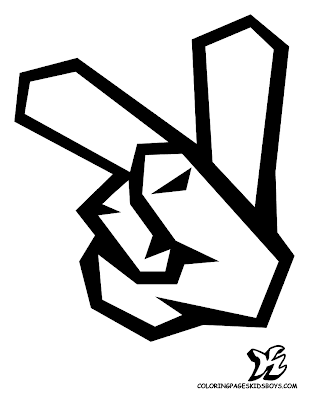
History of Alphabet | Graffiti Alphabet Letters
History of Alphabet | Graffiti Alphabet Letters. Graffiti alphabet letters with a hand symbol
History and graffiti style alphabet letters AZ began in ancient Egypt. By 2700 BCE Egyptian writing had a set of some 22 hieroglyphs to represent syllables that begin with a single consonant of their language, plus a vowel (or no vowel) to be given by native speakers. This glyph is used as a guide for pronunciation logograms, to write grammatical inflections, and, later, to write down loan words and foreign names.
However, although it seems alphabet in nature, the original Egyptian uniliterals not a system and never used by themselves to encode Egyptian speech. In the Middle Bronze Age apparently "alphabetic" system known as Proto-Sinaitic script is estimated by some to have been developed in central Egypt around 1700 BCE for or by Semitic workers, but only one of the early writings have been described and their properties remains open to interpretation. Based on appearances and names the letter, believed to be based on Egyptian hieroglyphs.
This script eventually developed into the Proto-Canaanite alphabet, which in turn was refined into the Phoenician alphabet. This also developed into the South Arabian alphabet, from which the Ge'ez alphabet (a abugida) are descended. Note that the script mentioned above is not considered feasible alphabet, because they all lack characters representing vowels. Vowelless alphabet is called abjads early, and still in scripts such as Arabic, Hebrew and Syriac.
Phoenix is the first major phonemic script. In contrast to the two writing systems are used extensively at the time, Cuneiform and Egyptian hieroglyphs, each containing thousands of different characters, it is only about two dozen distinct letters, so the script is simple enough for common traders to learn. Another advantage is that the Phoenix can be used to write many languages, because words are phonemically recorded.
This manuscript is spread by Phoenician, which allows Thalassocracy script to be spread throughout the Mediterranean. In Greece, the script is modified to add the vowels, giving rise to the first true alphabet. Greece took the letters do not represent the voices that are in Greek, and change them to represent vowels. This marked the formation of a "true" alphabet, with the presence of two vowels and consonants as explicit symbols in a script. In the early years, there are many variants of the Greek alphabet, a situation that causes many different alphabets evolved.
However, although it seems alphabet in nature, the original Egyptian uniliterals not a system and never used by themselves to encode Egyptian speech. In the Middle Bronze Age apparently "alphabetic" system known as Proto-Sinaitic script is estimated by some to have been developed in central Egypt around 1700 BCE for or by Semitic workers, but only one of the early writings have been described and their properties remains open to interpretation. Based on appearances and names the letter, believed to be based on Egyptian hieroglyphs.
This script eventually developed into the Proto-Canaanite alphabet, which in turn was refined into the Phoenician alphabet. This also developed into the South Arabian alphabet, from which the Ge'ez alphabet (a abugida) are descended. Note that the script mentioned above is not considered feasible alphabet, because they all lack characters representing vowels. Vowelless alphabet is called abjads early, and still in scripts such as Arabic, Hebrew and Syriac.
Phoenix is the first major phonemic script. In contrast to the two writing systems are used extensively at the time, Cuneiform and Egyptian hieroglyphs, each containing thousands of different characters, it is only about two dozen distinct letters, so the script is simple enough for common traders to learn. Another advantage is that the Phoenix can be used to write many languages, because words are phonemically recorded.
This manuscript is spread by Phoenician, which allows Thalassocracy script to be spread throughout the Mediterranean. In Greece, the script is modified to add the vowels, giving rise to the first true alphabet. Greece took the letters do not represent the voices that are in Greek, and change them to represent vowels. This marked the formation of a "true" alphabet, with the presence of two vowels and consonants as explicit symbols in a script. In the early years, there are many variants of the Greek alphabet, a situation that causes many different alphabets evolved.
History of Alphabet | Graffiti Alphabet Letters
History of Alphabet | Graffiti Alphabet Letters. Graffiti alphabet letters with a hand symbol
History and graffiti style alphabet letters AZ began in ancient Egypt. By 2700 BCE Egyptian writing had a set of some 22 hieroglyphs to represent syllables that begin with a single consonant of their language, plus a vowel (or no vowel) to be given by native speakers. This glyph is used as a guide for pronunciation logograms, to write grammatical inflections, and, later, to write down loan words and foreign names.
However, although it seems alphabet in nature, the original Egyptian uniliterals not a system and never used by themselves to encode Egyptian speech. In the Middle Bronze Age apparently "alphabetic" system known as Proto-Sinaitic script is estimated by some to have been developed in central Egypt around 1700 BCE for or by Semitic workers, but only one of the early writings have been described and their properties remains open to interpretation. Based on appearances and names the letter, believed to be based on Egyptian hieroglyphs.
This script eventually developed into the Proto-Canaanite alphabet, which in turn was refined into the Phoenician alphabet. This also developed into the South Arabian alphabet, from which the Ge'ez alphabet (a abugida) are descended. Note that the script mentioned above is not considered feasible alphabet, because they all lack characters representing vowels. Vowelless alphabet is called abjads early, and still in scripts such as Arabic, Hebrew and Syriac.
Phoenix is the first major phonemic script. In contrast to the two writing systems are used extensively at the time, Cuneiform and Egyptian hieroglyphs, each containing thousands of different characters, it is only about two dozen distinct letters, so the script is simple enough for common traders to learn. Another advantage is that the Phoenix can be used to write many languages, because words are phonemically recorded.
This manuscript is spread by Phoenician, which allows Thalassocracy script to be spread throughout the Mediterranean. In Greece, the script is modified to add the vowels, giving rise to the first true alphabet. Greece took the letters do not represent the voices that are in Greek, and change them to represent vowels. This marked the formation of a "true" alphabet, with the presence of two vowels and consonants as explicit symbols in a script. In the early years, there are many variants of the Greek alphabet, a situation that causes many different alphabets evolved.
However, although it seems alphabet in nature, the original Egyptian uniliterals not a system and never used by themselves to encode Egyptian speech. In the Middle Bronze Age apparently "alphabetic" system known as Proto-Sinaitic script is estimated by some to have been developed in central Egypt around 1700 BCE for or by Semitic workers, but only one of the early writings have been described and their properties remains open to interpretation. Based on appearances and names the letter, believed to be based on Egyptian hieroglyphs.
This script eventually developed into the Proto-Canaanite alphabet, which in turn was refined into the Phoenician alphabet. This also developed into the South Arabian alphabet, from which the Ge'ez alphabet (a abugida) are descended. Note that the script mentioned above is not considered feasible alphabet, because they all lack characters representing vowels. Vowelless alphabet is called abjads early, and still in scripts such as Arabic, Hebrew and Syriac.
Phoenix is the first major phonemic script. In contrast to the two writing systems are used extensively at the time, Cuneiform and Egyptian hieroglyphs, each containing thousands of different characters, it is only about two dozen distinct letters, so the script is simple enough for common traders to learn. Another advantage is that the Phoenix can be used to write many languages, because words are phonemically recorded.
This manuscript is spread by Phoenician, which allows Thalassocracy script to be spread throughout the Mediterranean. In Greece, the script is modified to add the vowels, giving rise to the first true alphabet. Greece took the letters do not represent the voices that are in Greek, and change them to represent vowels. This marked the formation of a "true" alphabet, with the presence of two vowels and consonants as explicit symbols in a script. In the early years, there are many variants of the Greek alphabet, a situation that causes many different alphabets evolved.
History of Alphabet | Graffiti Alphabet Letters
History of Alphabet | Graffiti Alphabet Letters. Graffiti alphabet letters with a hand symbol
History and graffiti style alphabet letters AZ began in ancient Egypt. By 2700 BCE Egyptian writing had a set of some 22 hieroglyphs to represent syllables that begin with a single consonant of their language, plus a vowel (or no vowel) to be given by native speakers. This glyph is used as a guide for pronunciation logograms, to write grammatical inflections, and, later, to write down loan words and foreign names.
However, although it seems alphabet in nature, the original Egyptian uniliterals not a system and never used by themselves to encode Egyptian speech. In the Middle Bronze Age apparently "alphabetic" system known as Proto-Sinaitic script is estimated by some to have been developed in central Egypt around 1700 BCE for or by Semitic workers, but only one of the early writings have been described and their properties remains open to interpretation. Based on appearances and names the letter, believed to be based on Egyptian hieroglyphs.
This script eventually developed into the Proto-Canaanite alphabet, which in turn was refined into the Phoenician alphabet. This also developed into the South Arabian alphabet, from which the Ge'ez alphabet (a abugida) are descended. Note that the script mentioned above is not considered feasible alphabet, because they all lack characters representing vowels. Vowelless alphabet is called abjads early, and still in scripts such as Arabic, Hebrew and Syriac.
Phoenix is the first major phonemic script. In contrast to the two writing systems are used extensively at the time, Cuneiform and Egyptian hieroglyphs, each containing thousands of different characters, it is only about two dozen distinct letters, so the script is simple enough for common traders to learn. Another advantage is that the Phoenix can be used to write many languages, because words are phonemically recorded.
This manuscript is spread by Phoenician, which allows Thalassocracy script to be spread throughout the Mediterranean. In Greece, the script is modified to add the vowels, giving rise to the first true alphabet. Greece took the letters do not represent the voices that are in Greek, and change them to represent vowels. This marked the formation of a "true" alphabet, with the presence of two vowels and consonants as explicit symbols in a script. In the early years, there are many variants of the Greek alphabet, a situation that causes many different alphabets evolved.
However, although it seems alphabet in nature, the original Egyptian uniliterals not a system and never used by themselves to encode Egyptian speech. In the Middle Bronze Age apparently "alphabetic" system known as Proto-Sinaitic script is estimated by some to have been developed in central Egypt around 1700 BCE for or by Semitic workers, but only one of the early writings have been described and their properties remains open to interpretation. Based on appearances and names the letter, believed to be based on Egyptian hieroglyphs.
This script eventually developed into the Proto-Canaanite alphabet, which in turn was refined into the Phoenician alphabet. This also developed into the South Arabian alphabet, from which the Ge'ez alphabet (a abugida) are descended. Note that the script mentioned above is not considered feasible alphabet, because they all lack characters representing vowels. Vowelless alphabet is called abjads early, and still in scripts such as Arabic, Hebrew and Syriac.
Phoenix is the first major phonemic script. In contrast to the two writing systems are used extensively at the time, Cuneiform and Egyptian hieroglyphs, each containing thousands of different characters, it is only about two dozen distinct letters, so the script is simple enough for common traders to learn. Another advantage is that the Phoenix can be used to write many languages, because words are phonemically recorded.
This manuscript is spread by Phoenician, which allows Thalassocracy script to be spread throughout the Mediterranean. In Greece, the script is modified to add the vowels, giving rise to the first true alphabet. Greece took the letters do not represent the voices that are in Greek, and change them to represent vowels. This marked the formation of a "true" alphabet, with the presence of two vowels and consonants as explicit symbols in a script. In the early years, there are many variants of the Greek alphabet, a situation that causes many different alphabets evolved.
History of Alphabet | Graffiti Alphabet Letters
History of Alphabet | Graffiti Alphabet Letters. Graffiti alphabet letters with a hand symbol
History and graffiti style alphabet letters AZ began in ancient Egypt. By 2700 BCE Egyptian writing had a set of some 22 hieroglyphs to represent syllables that begin with a single consonant of their language, plus a vowel (or no vowel) to be given by native speakers. This glyph is used as a guide for pronunciation logograms, to write grammatical inflections, and, later, to write down loan words and foreign names.
However, although it seems alphabet in nature, the original Egyptian uniliterals not a system and never used by themselves to encode Egyptian speech. In the Middle Bronze Age apparently "alphabetic" system known as Proto-Sinaitic script is estimated by some to have been developed in central Egypt around 1700 BCE for or by Semitic workers, but only one of the early writings have been described and their properties remains open to interpretation. Based on appearances and names the letter, believed to be based on Egyptian hieroglyphs.
This script eventually developed into the Proto-Canaanite alphabet, which in turn was refined into the Phoenician alphabet. This also developed into the South Arabian alphabet, from which the Ge'ez alphabet (a abugida) are descended. Note that the script mentioned above is not considered feasible alphabet, because they all lack characters representing vowels. Vowelless alphabet is called abjads early, and still in scripts such as Arabic, Hebrew and Syriac.
Phoenix is the first major phonemic script. In contrast to the two writing systems are used extensively at the time, Cuneiform and Egyptian hieroglyphs, each containing thousands of different characters, it is only about two dozen distinct letters, so the script is simple enough for common traders to learn. Another advantage is that the Phoenix can be used to write many languages, because words are phonemically recorded.
This manuscript is spread by Phoenician, which allows Thalassocracy script to be spread throughout the Mediterranean. In Greece, the script is modified to add the vowels, giving rise to the first true alphabet. Greece took the letters do not represent the voices that are in Greek, and change them to represent vowels. This marked the formation of a "true" alphabet, with the presence of two vowels and consonants as explicit symbols in a script. In the early years, there are many variants of the Greek alphabet, a situation that causes many different alphabets evolved.
However, although it seems alphabet in nature, the original Egyptian uniliterals not a system and never used by themselves to encode Egyptian speech. In the Middle Bronze Age apparently "alphabetic" system known as Proto-Sinaitic script is estimated by some to have been developed in central Egypt around 1700 BCE for or by Semitic workers, but only one of the early writings have been described and their properties remains open to interpretation. Based on appearances and names the letter, believed to be based on Egyptian hieroglyphs.
This script eventually developed into the Proto-Canaanite alphabet, which in turn was refined into the Phoenician alphabet. This also developed into the South Arabian alphabet, from which the Ge'ez alphabet (a abugida) are descended. Note that the script mentioned above is not considered feasible alphabet, because they all lack characters representing vowels. Vowelless alphabet is called abjads early, and still in scripts such as Arabic, Hebrew and Syriac.
Phoenix is the first major phonemic script. In contrast to the two writing systems are used extensively at the time, Cuneiform and Egyptian hieroglyphs, each containing thousands of different characters, it is only about two dozen distinct letters, so the script is simple enough for common traders to learn. Another advantage is that the Phoenix can be used to write many languages, because words are phonemically recorded.
This manuscript is spread by Phoenician, which allows Thalassocracy script to be spread throughout the Mediterranean. In Greece, the script is modified to add the vowels, giving rise to the first true alphabet. Greece took the letters do not represent the voices that are in Greek, and change them to represent vowels. This marked the formation of a "true" alphabet, with the presence of two vowels and consonants as explicit symbols in a script. In the early years, there are many variants of the Greek alphabet, a situation that causes many different alphabets evolved.
History of Alphabet | Graffiti Alphabet Letters
History of Alphabet | Graffiti Alphabet Letters. Graffiti alphabet letters with a hand symbol
History and graffiti style alphabet letters AZ began in ancient Egypt. By 2700 BCE Egyptian writing had a set of some 22 hieroglyphs to represent syllables that begin with a single consonant of their language, plus a vowel (or no vowel) to be given by native speakers. This glyph is used as a guide for pronunciation logograms, to write grammatical inflections, and, later, to write down loan words and foreign names.
However, although it seems alphabet in nature, the original Egyptian uniliterals not a system and never used by themselves to encode Egyptian speech. In the Middle Bronze Age apparently "alphabetic" system known as Proto-Sinaitic script is estimated by some to have been developed in central Egypt around 1700 BCE for or by Semitic workers, but only one of the early writings have been described and their properties remains open to interpretation. Based on appearances and names the letter, believed to be based on Egyptian hieroglyphs.
This script eventually developed into the Proto-Canaanite alphabet, which in turn was refined into the Phoenician alphabet. This also developed into the South Arabian alphabet, from which the Ge'ez alphabet (a abugida) are descended. Note that the script mentioned above is not considered feasible alphabet, because they all lack characters representing vowels. Vowelless alphabet is called abjads early, and still in scripts such as Arabic, Hebrew and Syriac.
Phoenix is the first major phonemic script. In contrast to the two writing systems are used extensively at the time, Cuneiform and Egyptian hieroglyphs, each containing thousands of different characters, it is only about two dozen distinct letters, so the script is simple enough for common traders to learn. Another advantage is that the Phoenix can be used to write many languages, because words are phonemically recorded.
This manuscript is spread by Phoenician, which allows Thalassocracy script to be spread throughout the Mediterranean. In Greece, the script is modified to add the vowels, giving rise to the first true alphabet. Greece took the letters do not represent the voices that are in Greek, and change them to represent vowels. This marked the formation of a "true" alphabet, with the presence of two vowels and consonants as explicit symbols in a script. In the early years, there are many variants of the Greek alphabet, a situation that causes many different alphabets evolved.
However, although it seems alphabet in nature, the original Egyptian uniliterals not a system and never used by themselves to encode Egyptian speech. In the Middle Bronze Age apparently "alphabetic" system known as Proto-Sinaitic script is estimated by some to have been developed in central Egypt around 1700 BCE for or by Semitic workers, but only one of the early writings have been described and their properties remains open to interpretation. Based on appearances and names the letter, believed to be based on Egyptian hieroglyphs.
This script eventually developed into the Proto-Canaanite alphabet, which in turn was refined into the Phoenician alphabet. This also developed into the South Arabian alphabet, from which the Ge'ez alphabet (a abugida) are descended. Note that the script mentioned above is not considered feasible alphabet, because they all lack characters representing vowels. Vowelless alphabet is called abjads early, and still in scripts such as Arabic, Hebrew and Syriac.
Phoenix is the first major phonemic script. In contrast to the two writing systems are used extensively at the time, Cuneiform and Egyptian hieroglyphs, each containing thousands of different characters, it is only about two dozen distinct letters, so the script is simple enough for common traders to learn. Another advantage is that the Phoenix can be used to write many languages, because words are phonemically recorded.
This manuscript is spread by Phoenician, which allows Thalassocracy script to be spread throughout the Mediterranean. In Greece, the script is modified to add the vowels, giving rise to the first true alphabet. Greece took the letters do not represent the voices that are in Greek, and change them to represent vowels. This marked the formation of a "true" alphabet, with the presence of two vowels and consonants as explicit symbols in a script. In the early years, there are many variants of the Greek alphabet, a situation that causes many different alphabets evolved.
History of Alphabet | Graffiti Alphabet Letters
History of Alphabet | Graffiti Alphabet Letters. Graffiti alphabet letters with a hand symbol
History and graffiti style alphabet letters AZ began in ancient Egypt. By 2700 BCE Egyptian writing had a set of some 22 hieroglyphs to represent syllables that begin with a single consonant of their language, plus a vowel (or no vowel) to be given by native speakers. This glyph is used as a guide for pronunciation logograms, to write grammatical inflections, and, later, to write down loan words and foreign names.
However, although it seems alphabet in nature, the original Egyptian uniliterals not a system and never used by themselves to encode Egyptian speech. In the Middle Bronze Age apparently "alphabetic" system known as Proto-Sinaitic script is estimated by some to have been developed in central Egypt around 1700 BCE for or by Semitic workers, but only one of the early writings have been described and their properties remains open to interpretation. Based on appearances and names the letter, believed to be based on Egyptian hieroglyphs.
This script eventually developed into the Proto-Canaanite alphabet, which in turn was refined into the Phoenician alphabet. This also developed into the South Arabian alphabet, from which the Ge'ez alphabet (a abugida) are descended. Note that the script mentioned above is not considered feasible alphabet, because they all lack characters representing vowels. Vowelless alphabet is called abjads early, and still in scripts such as Arabic, Hebrew and Syriac.
Phoenix is the first major phonemic script. In contrast to the two writing systems are used extensively at the time, Cuneiform and Egyptian hieroglyphs, each containing thousands of different characters, it is only about two dozen distinct letters, so the script is simple enough for common traders to learn. Another advantage is that the Phoenix can be used to write many languages, because words are phonemically recorded.
This manuscript is spread by Phoenician, which allows Thalassocracy script to be spread throughout the Mediterranean. In Greece, the script is modified to add the vowels, giving rise to the first true alphabet. Greece took the letters do not represent the voices that are in Greek, and change them to represent vowels. This marked the formation of a "true" alphabet, with the presence of two vowels and consonants as explicit symbols in a script. In the early years, there are many variants of the Greek alphabet, a situation that causes many different alphabets evolved.
However, although it seems alphabet in nature, the original Egyptian uniliterals not a system and never used by themselves to encode Egyptian speech. In the Middle Bronze Age apparently "alphabetic" system known as Proto-Sinaitic script is estimated by some to have been developed in central Egypt around 1700 BCE for or by Semitic workers, but only one of the early writings have been described and their properties remains open to interpretation. Based on appearances and names the letter, believed to be based on Egyptian hieroglyphs.
This script eventually developed into the Proto-Canaanite alphabet, which in turn was refined into the Phoenician alphabet. This also developed into the South Arabian alphabet, from which the Ge'ez alphabet (a abugida) are descended. Note that the script mentioned above is not considered feasible alphabet, because they all lack characters representing vowels. Vowelless alphabet is called abjads early, and still in scripts such as Arabic, Hebrew and Syriac.
Phoenix is the first major phonemic script. In contrast to the two writing systems are used extensively at the time, Cuneiform and Egyptian hieroglyphs, each containing thousands of different characters, it is only about two dozen distinct letters, so the script is simple enough for common traders to learn. Another advantage is that the Phoenix can be used to write many languages, because words are phonemically recorded.
This manuscript is spread by Phoenician, which allows Thalassocracy script to be spread throughout the Mediterranean. In Greece, the script is modified to add the vowels, giving rise to the first true alphabet. Greece took the letters do not represent the voices that are in Greek, and change them to represent vowels. This marked the formation of a "true" alphabet, with the presence of two vowels and consonants as explicit symbols in a script. In the early years, there are many variants of the Greek alphabet, a situation that causes many different alphabets evolved.
History of Alphabet | Graffiti Alphabet Letters
History of Alphabet | Graffiti Alphabet Letters. Graffiti alphabet letters with a hand symbol
History and graffiti style alphabet letters AZ began in ancient Egypt. By 2700 BCE Egyptian writing had a set of some 22 hieroglyphs to represent syllables that begin with a single consonant of their language, plus a vowel (or no vowel) to be given by native speakers. This glyph is used as a guide for pronunciation logograms, to write grammatical inflections, and, later, to write down loan words and foreign names.
However, although it seems alphabet in nature, the original Egyptian uniliterals not a system and never used by themselves to encode Egyptian speech. In the Middle Bronze Age apparently "alphabetic" system known as Proto-Sinaitic script is estimated by some to have been developed in central Egypt around 1700 BCE for or by Semitic workers, but only one of the early writings have been described and their properties remains open to interpretation. Based on appearances and names the letter, believed to be based on Egyptian hieroglyphs.
This script eventually developed into the Proto-Canaanite alphabet, which in turn was refined into the Phoenician alphabet. This also developed into the South Arabian alphabet, from which the Ge'ez alphabet (a abugida) are descended. Note that the script mentioned above is not considered feasible alphabet, because they all lack characters representing vowels. Vowelless alphabet is called abjads early, and still in scripts such as Arabic, Hebrew and Syriac.
Phoenix is the first major phonemic script. In contrast to the two writing systems are used extensively at the time, Cuneiform and Egyptian hieroglyphs, each containing thousands of different characters, it is only about two dozen distinct letters, so the script is simple enough for common traders to learn. Another advantage is that the Phoenix can be used to write many languages, because words are phonemically recorded.
This manuscript is spread by Phoenician, which allows Thalassocracy script to be spread throughout the Mediterranean. In Greece, the script is modified to add the vowels, giving rise to the first true alphabet. Greece took the letters do not represent the voices that are in Greek, and change them to represent vowels. This marked the formation of a "true" alphabet, with the presence of two vowels and consonants as explicit symbols in a script. In the early years, there are many variants of the Greek alphabet, a situation that causes many different alphabets evolved.
However, although it seems alphabet in nature, the original Egyptian uniliterals not a system and never used by themselves to encode Egyptian speech. In the Middle Bronze Age apparently "alphabetic" system known as Proto-Sinaitic script is estimated by some to have been developed in central Egypt around 1700 BCE for or by Semitic workers, but only one of the early writings have been described and their properties remains open to interpretation. Based on appearances and names the letter, believed to be based on Egyptian hieroglyphs.
This script eventually developed into the Proto-Canaanite alphabet, which in turn was refined into the Phoenician alphabet. This also developed into the South Arabian alphabet, from which the Ge'ez alphabet (a abugida) are descended. Note that the script mentioned above is not considered feasible alphabet, because they all lack characters representing vowels. Vowelless alphabet is called abjads early, and still in scripts such as Arabic, Hebrew and Syriac.
Phoenix is the first major phonemic script. In contrast to the two writing systems are used extensively at the time, Cuneiform and Egyptian hieroglyphs, each containing thousands of different characters, it is only about two dozen distinct letters, so the script is simple enough for common traders to learn. Another advantage is that the Phoenix can be used to write many languages, because words are phonemically recorded.
This manuscript is spread by Phoenician, which allows Thalassocracy script to be spread throughout the Mediterranean. In Greece, the script is modified to add the vowels, giving rise to the first true alphabet. Greece took the letters do not represent the voices that are in Greek, and change them to represent vowels. This marked the formation of a "true" alphabet, with the presence of two vowels and consonants as explicit symbols in a script. In the early years, there are many variants of the Greek alphabet, a situation that causes many different alphabets evolved.